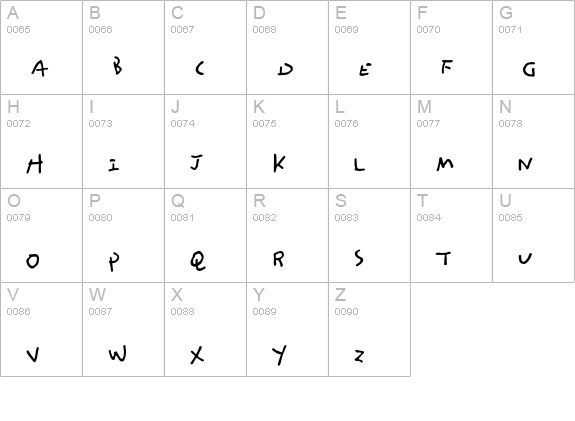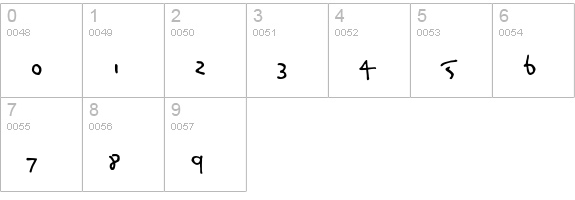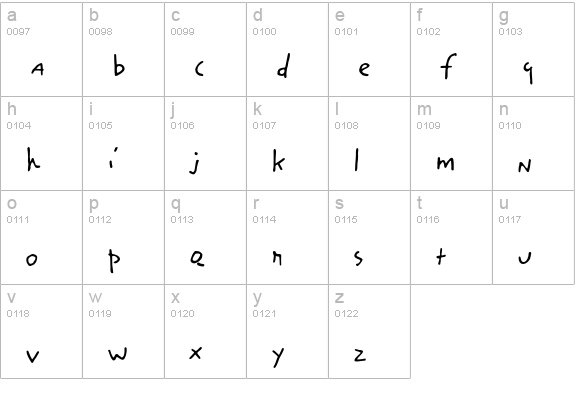
Dizzy-Alternate Font Details
Dizzy-Alternate font is a whimsical and playful typeface that is sure to add a touch of fun to your designs. With its quirky and unique characters, Dizzy-Alternate is perfect for projects that call for a lighthearted and creative touch. This font is freely available to download at FontsMarket.com, making it accessible to all designers looking to add some personality to their work. Whether you're working on a poster, invitation, or branding project, Dizzy-Alternate is sure to make a statement and bring a sense of joy to your designs. Download this charming font today and let your creativity soar!